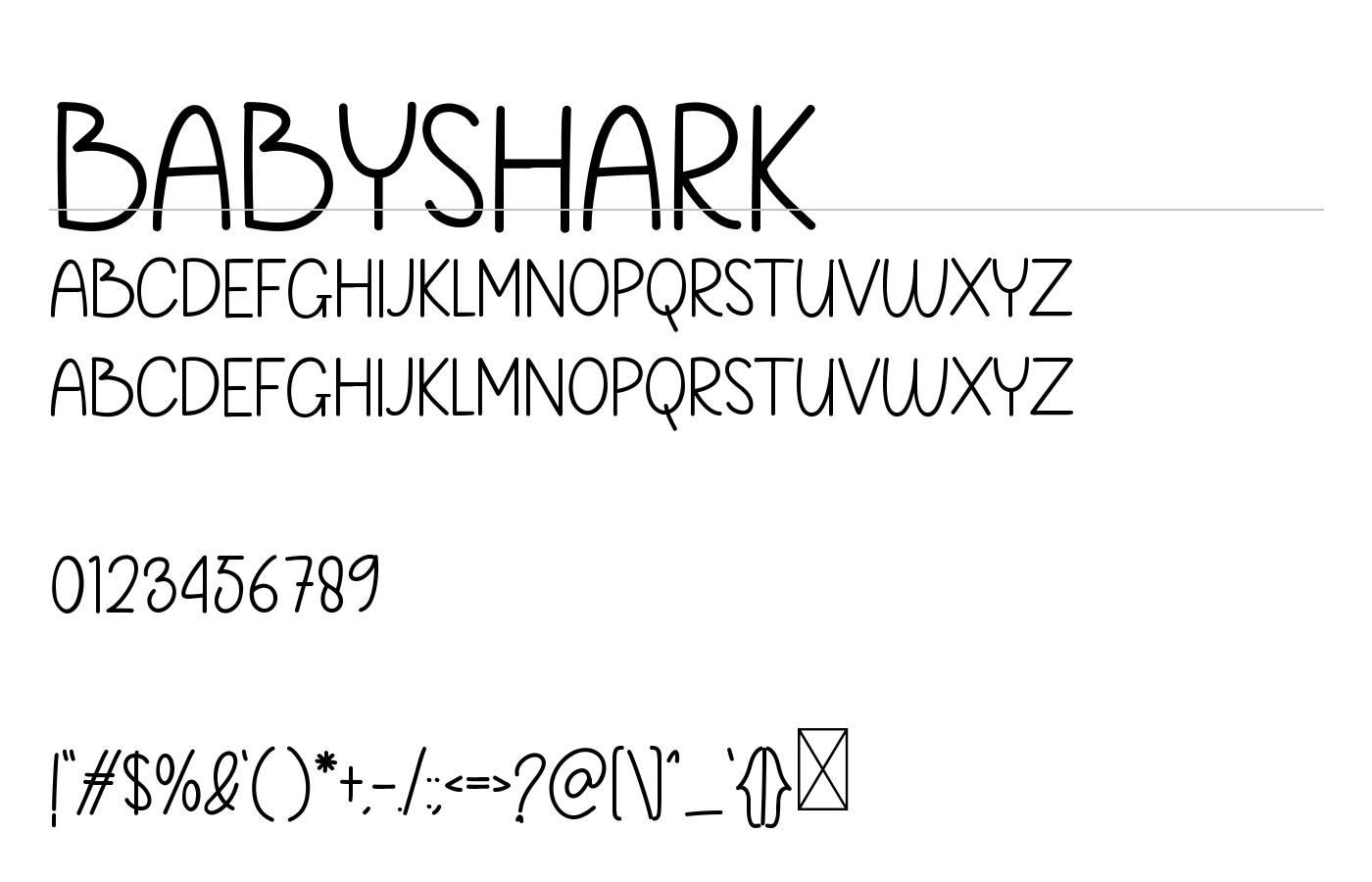
Babyshark is a playful, hand-drawn sans serif font with a light weight and tall, narrow letterforms that give it a whimsical and friendly feel. Its clean, slightly irregular strokes and single-story characters make it perfect for casual, child-focused designs and creative projects that want to convey warmth and approachability. This font works wonderfully for children's books, playful branding, posters, and websites where a fun, informal tone is desired.
Babyshark Font
About Babyshark Font